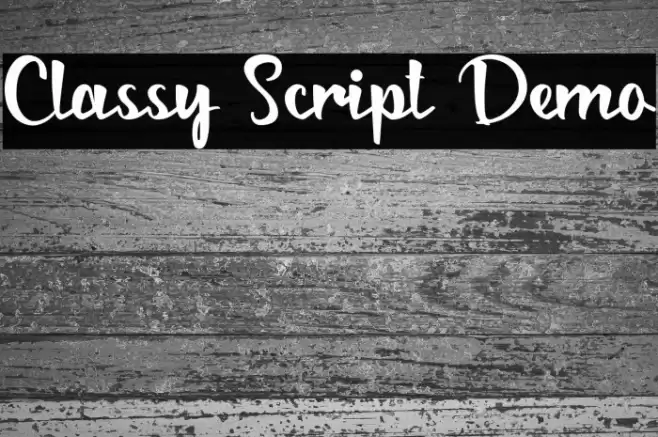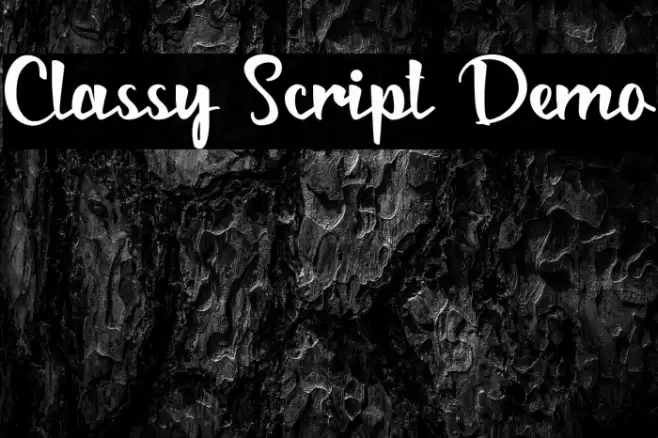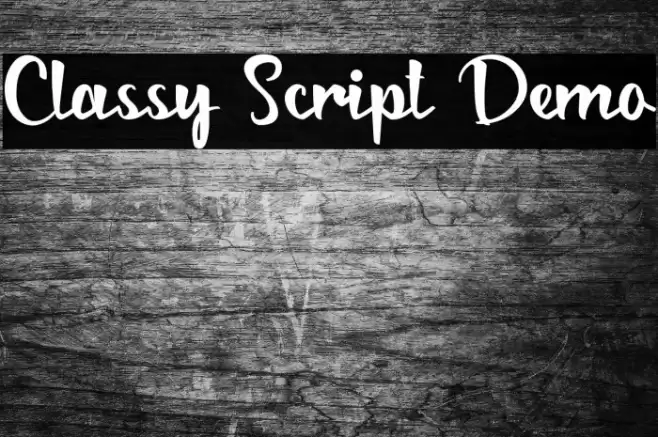
Classy Script Demo Font
Classy Script Demo Description
This font features a stylish and elegant script design, characterized by its flowing, cursive letterforms. The uppercase letters exhibit a graceful and slightly whimsical appearance, with smooth curves and a consistent stroke width. The lowercase letters maintain a harmonious flow, enhancing the script's overall fluidity. The font's design is both modern and classic, making it versatile for various applications. Its bold weight adds a strong presence, while the moderate contrast in stroke thickness provides readability without sacrificing its decorative appeal. The character spacing is normal, ensuring legibility and a balanced look.
A stylish and elegant script font with flowing, cursive letterforms and a bold presence from Regular fonts.
- Proposed Projects: Ideal for wedding invitations, branding, logo design, and elegant packaging.
- Overall Style: Modern, Classic
- Use Case: Logos, Headlines, Invitations